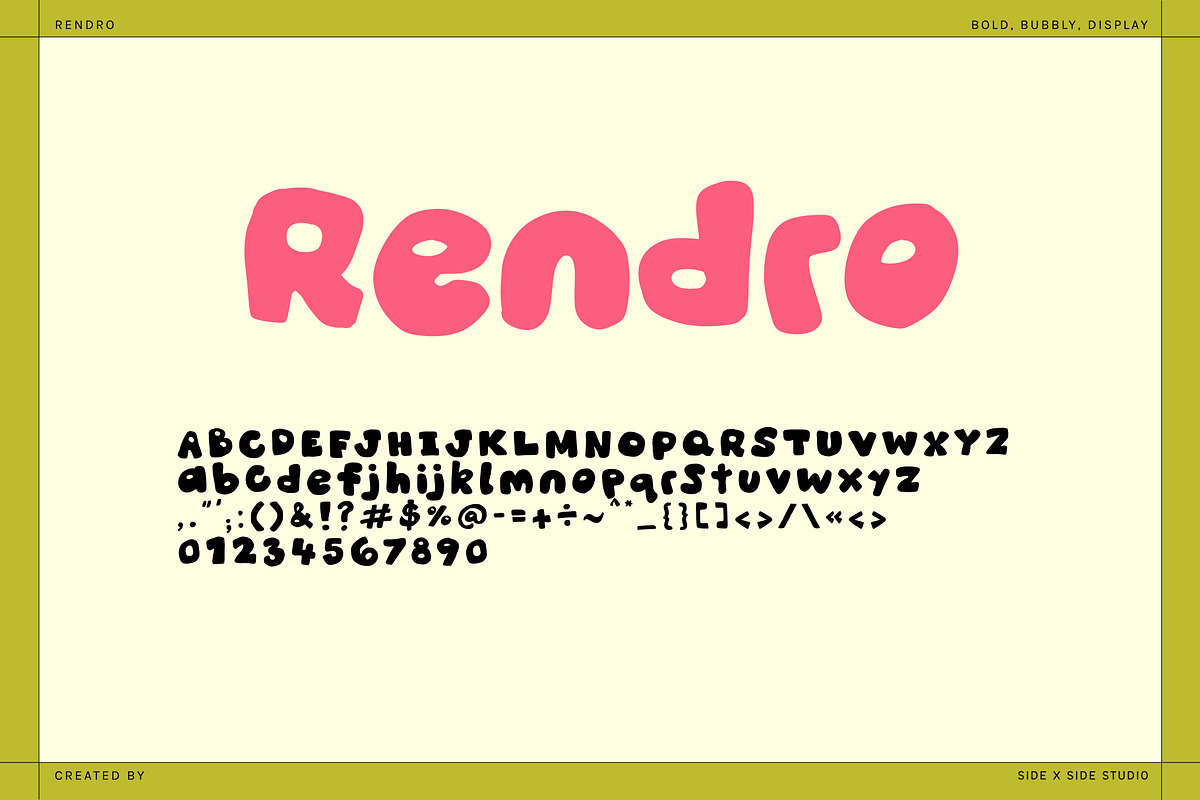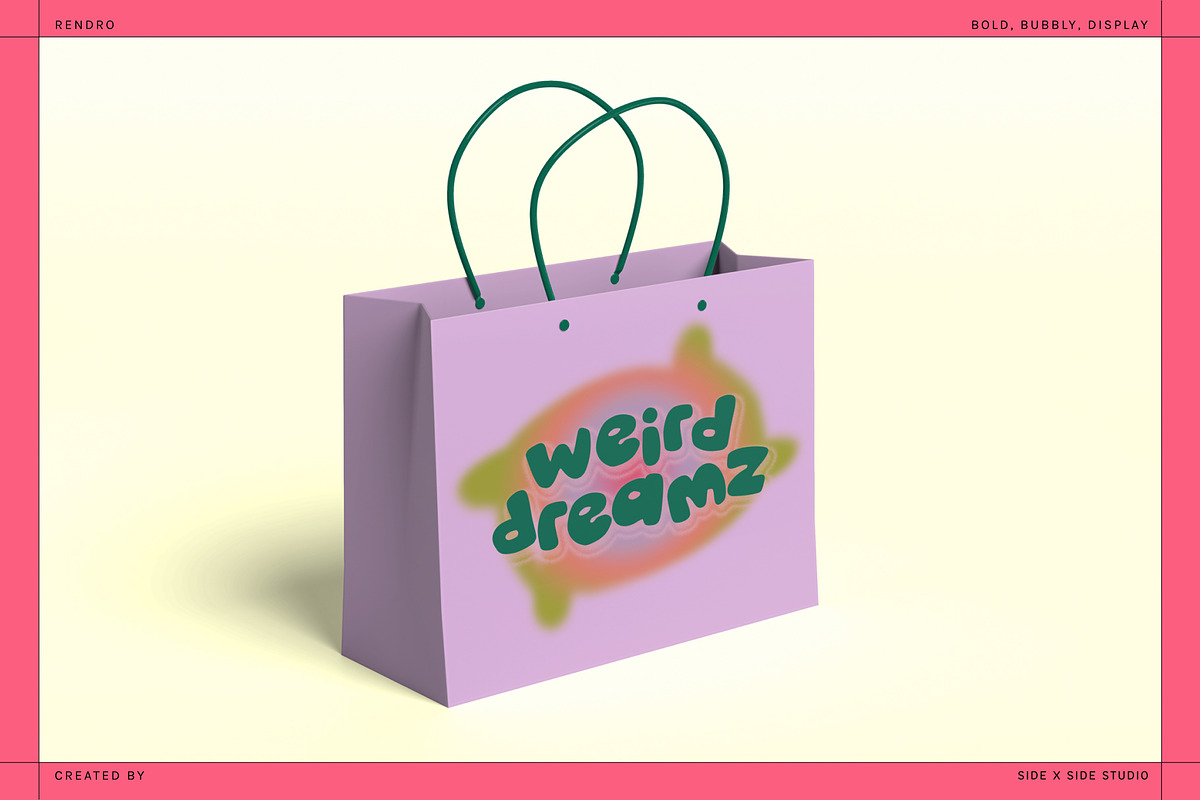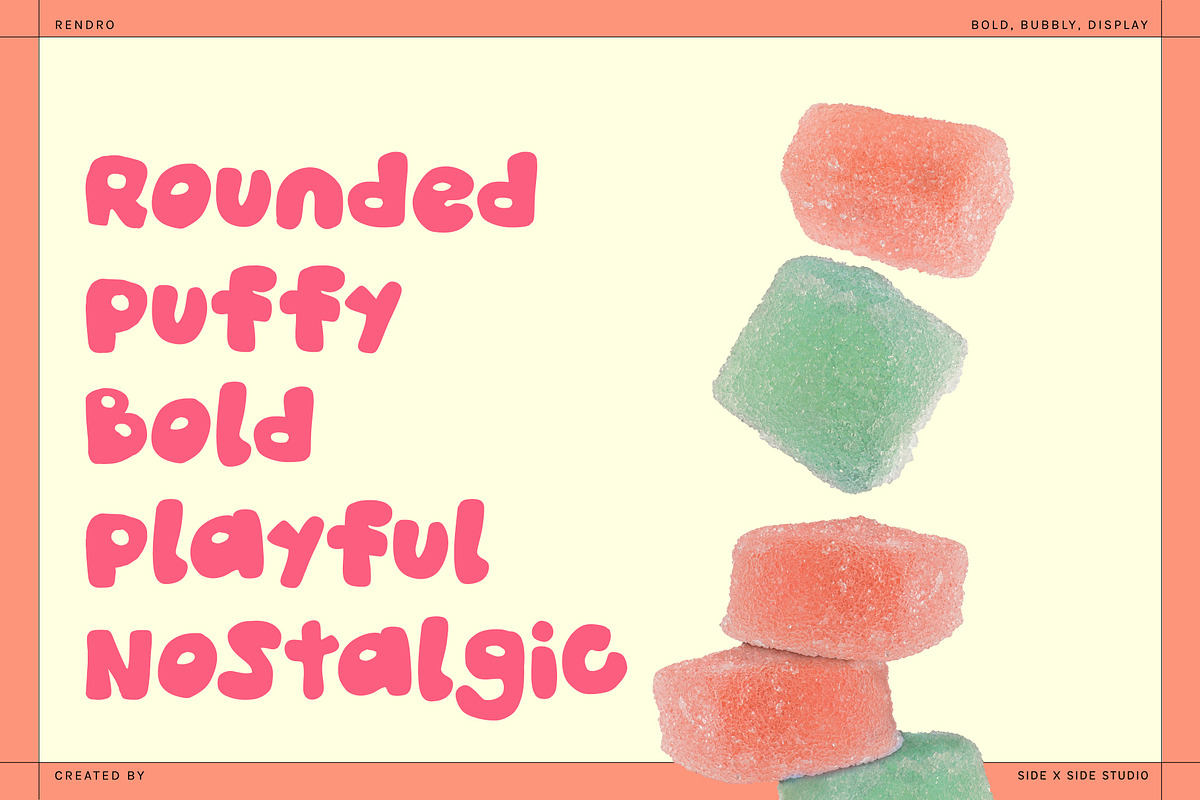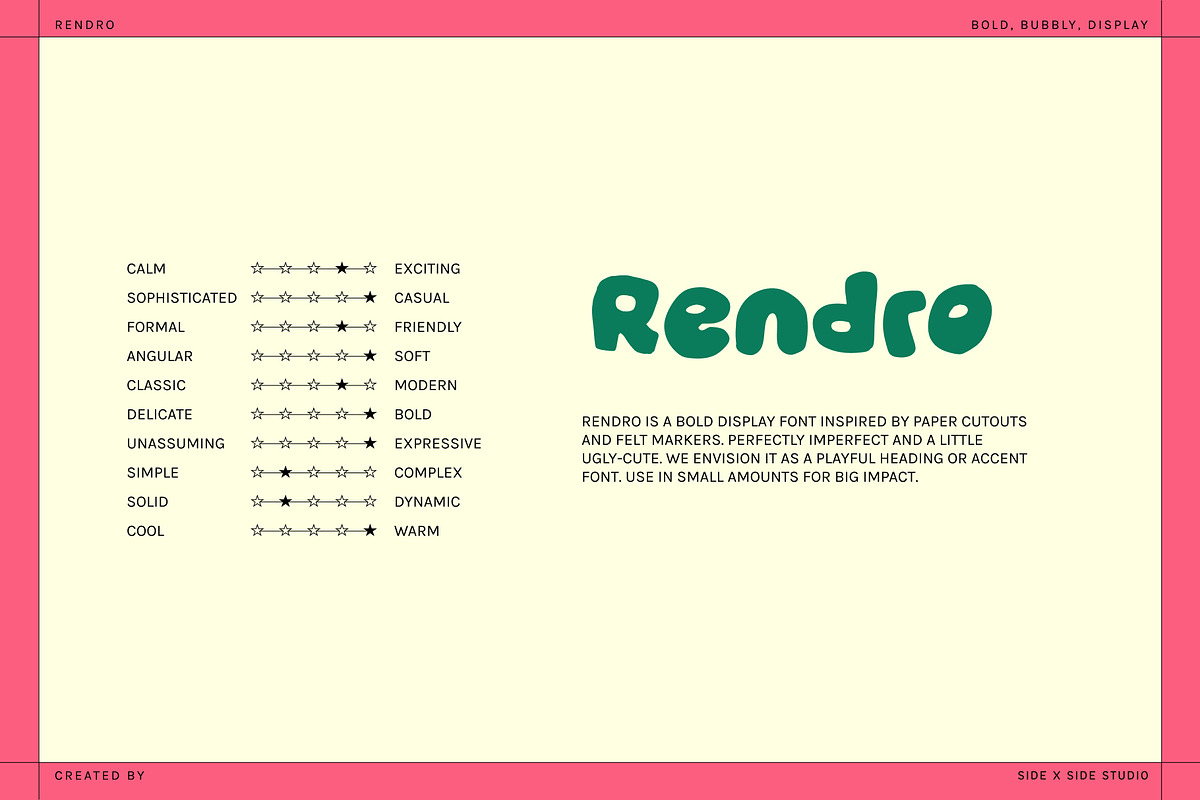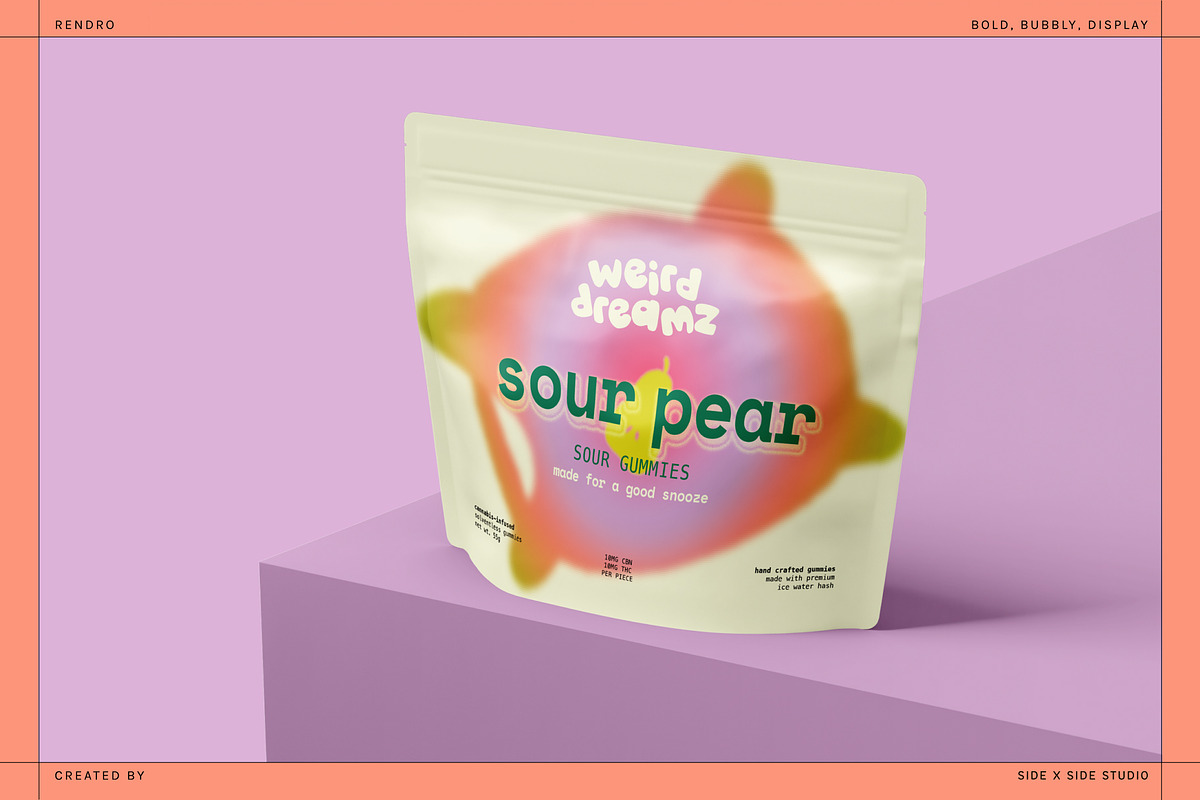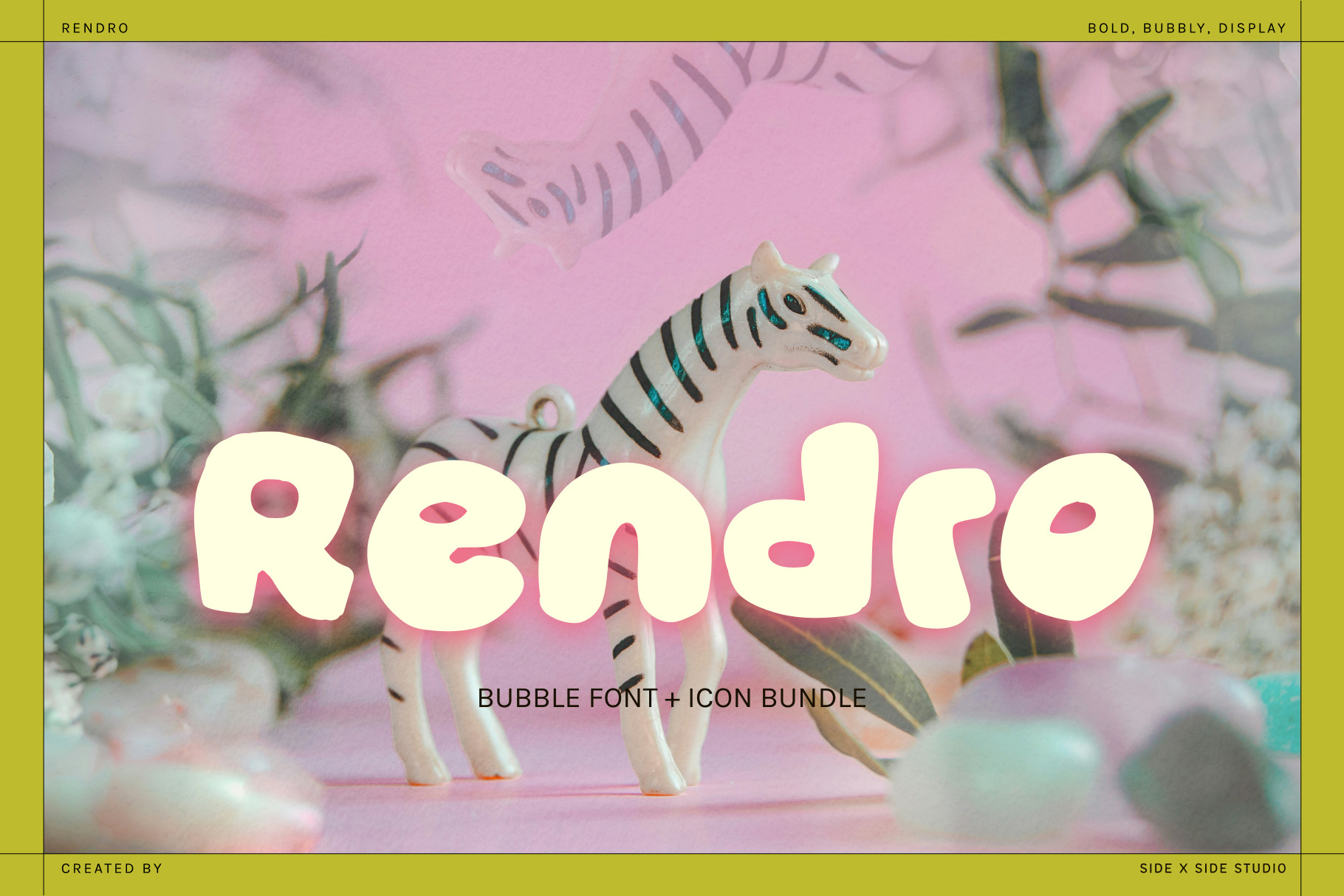
Rendro Bubble Display Font + Icons
Rendro is a bold display font inspired by paper cutouts and felt markers. Perfectly imperfect and a little ugly-cute. We envision it as a playful logo, heading, or accent font. Use in small amounts for big impact!